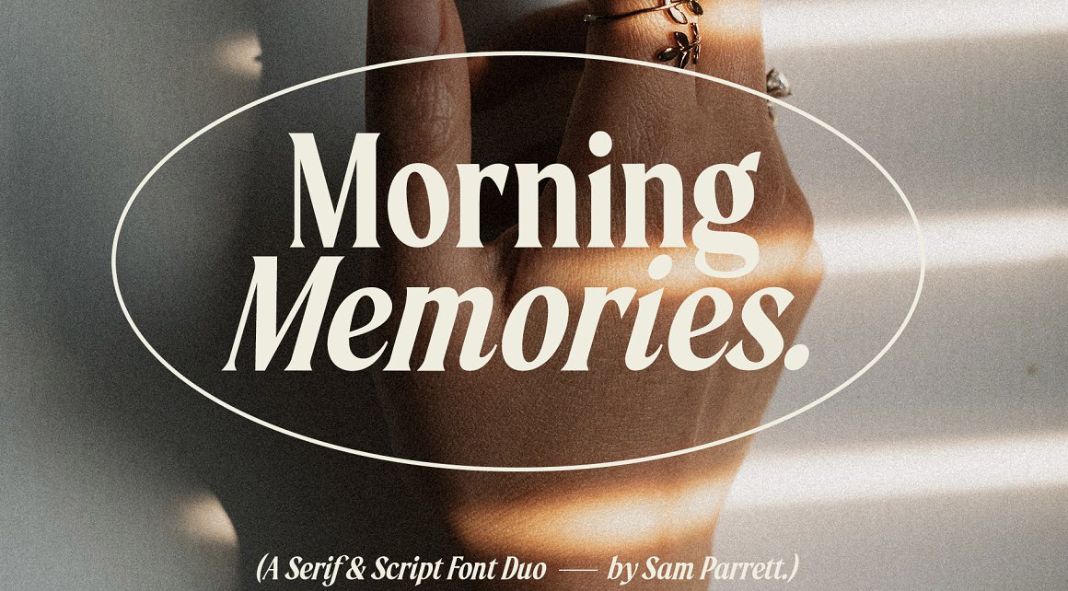
Say hello to Sam Parrett’s Morning Memories serif and script fonts, which evoke a sense of nostalgia for cherished memories of the past while inspiring hope for creating new moments to treasure.
The Morning Memories Serif font is a powerful, condensed typeface that features both a regular and italic version. It’s ideal for making bold statements, designing logos, and creating headers that grab attention.
The Morning Memories Script comes with a fast-paced, pencil-textured handwritten font that works well as a secondary font for the serif, highlighted words, and logo taglines. It features 36 ligatures, which are unique combinations of double and triple letters that aid in creating naturally flowing handwritten letterforms.
In addition, you will receive the Morning Memories Doodles font as a bonus. This font features 26 hand-drawn ovals, underlines, and arrows that can be used to emphasize your serif text and add a personal touch.